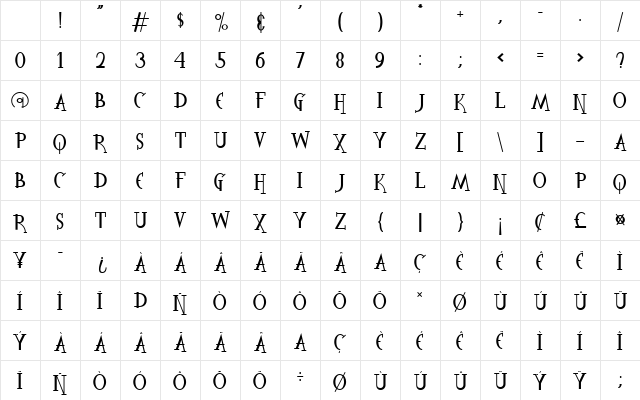
Complete The Spooky Time Regular glyph index. Displaying only characters natively supported by The Spooky Time Regular font.
The Spooky Time is a composed and adaptable typeface that performs quietly and consistently across a wide range of design contexts.